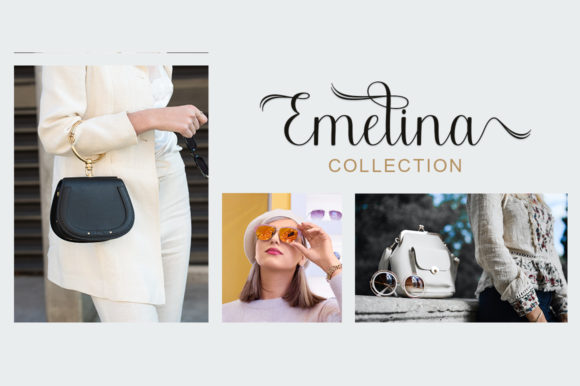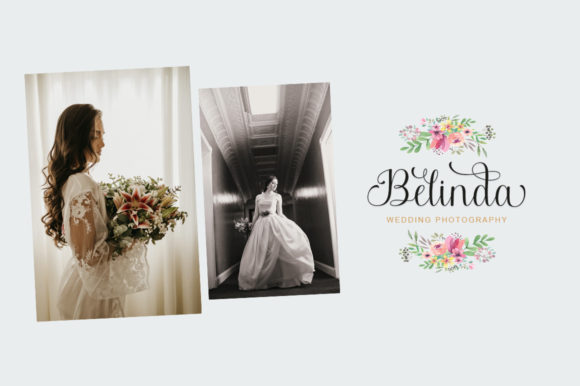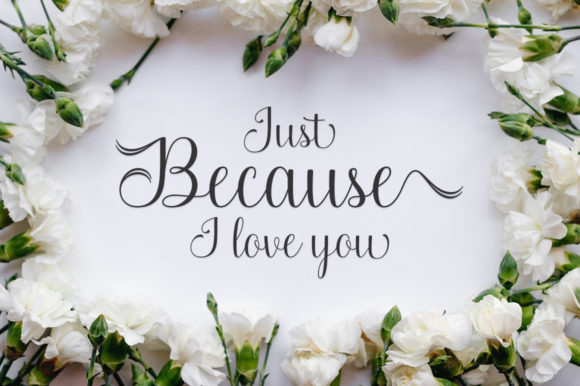
The Hunt for the Perfect Font: Discovering Celtia
I still remember the time I was working on a wedding invitation project, and my client asked for a font that was elegant, yet personal. I scoured the internet, tried countless fonts, but nothing seemed quite right. That was until I stumbled upon Celtia, a unique and elegant handwritten font that stole my heart. In this article, I’ll share my experience with Celtia, its features, and how to make the most of it in your designs.
A First Impression: What I Love About Celtia
Celtia is a beautiful, handwritten font that exudes elegance and sophistication. Here are a few things that I love about it:
- ✨ Unique and elegant handwritten style, perfect for adding a personal touch to designs
- ✅ PUA encoded, making it easy to access all glyphs and swashes
- 💕 Perfect for a variety of designs, including wedding invitations, thank you cards, logos, and more
- 🎨 Highly versatile, works well with a range of design styles and color schemes
Honest Review: The Not-Perfect-but-Almost Section
While Celtia is an amazing font, there are a few small quirks to be aware of:
- 🤔 Limited character set compared to some other fonts, which can be a limitation for certain projects
- ⚠️ Some users may find the font a bit too ornate or delicate for certain design applications
The Story Behind Celtia: Designer Inspiration
Celtia was designed with the intention of creating a beautiful, handwritten font that captures the elegance and sophistication of traditional calligraphy. The designer drew inspiration from a range of sources, including classic typography, handwritten manuscripts, and modern calligraphy. The result is a font that’s both timeless and modern, perfect for adding a personal touch to your designs.
| Font Name | Celtia Font |
| Author | Stripes Studio |
| What is Celtia? | Celtia is a unique and elegant handwritten font, perfect for adding a personal touch to designs. |
| Is Celtia PUA encoded? | Yes, Celtia is PUA encoded, making it easy to access all glyphs and swashes. |